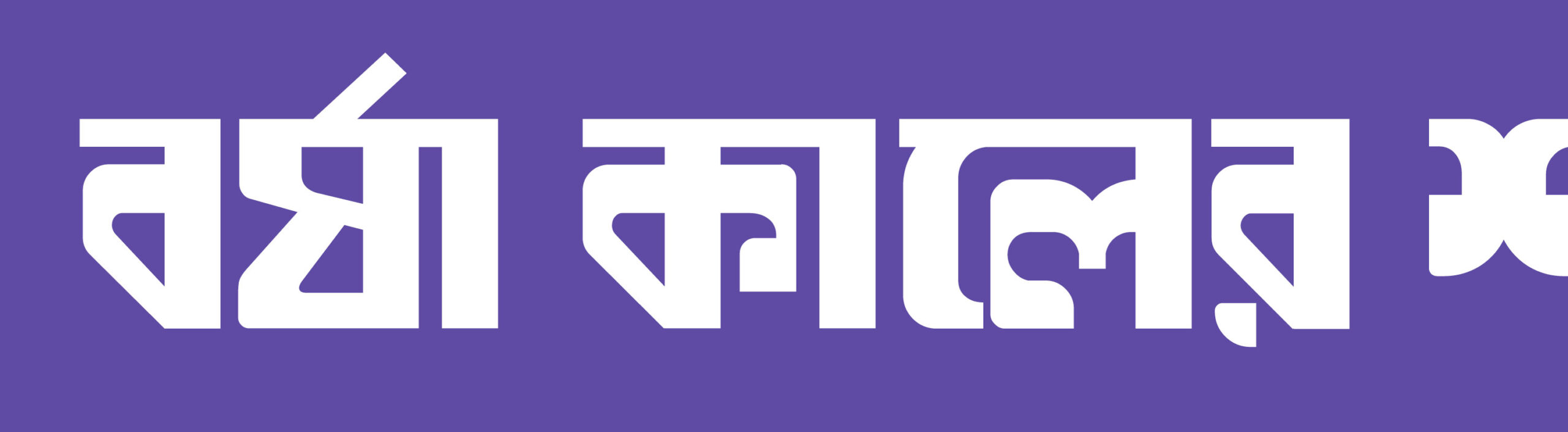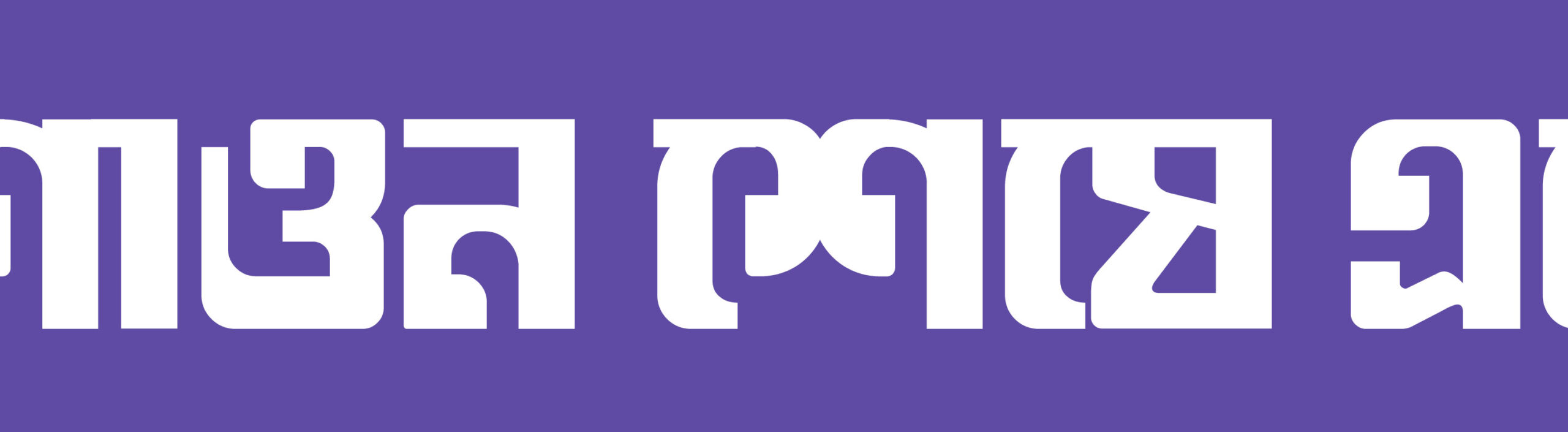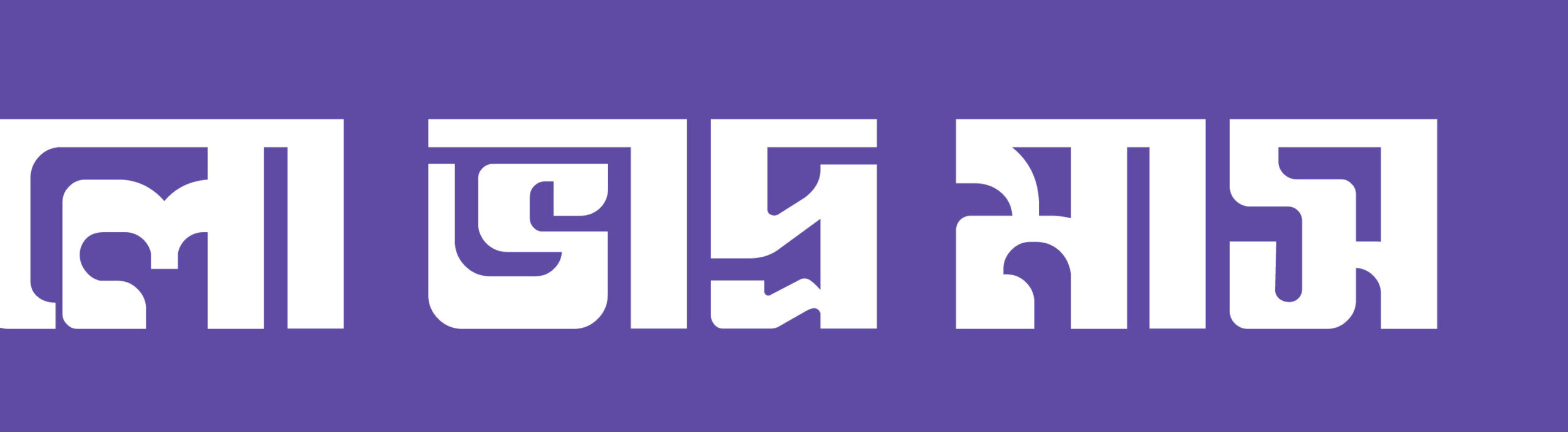
Bhadro
Designer
Kazi Jubair Mahmud
Bhadro is a box-shaped typeface with slightly rounded corners, blending modernity with friendliness. Its squared structure offers strength and stability, while softened edges add warmth and approachability. This balance creates a distinctive design that’s neither harsh nor mechanical. Designed mainly for display use, Bhadro excels in headlines, titles, branding, advertising, and packaging, delivering clarity and impact. The typeface’s proportions ensure readability with tight spacing, while uniform stroke weight reinforces its solid, block-like feel. Rounded corners reduce visual strain and add sophistication. Bhadro’s harmonious mix of structure and softness makes it versatile for corporate identities and playful consumer products alike. It provides a confident yet welcoming typographic voice, ideal wherever strong, memorable typography is needed.
Classifications
Display
Type Engineer
Kazi Sayeed Mahmud